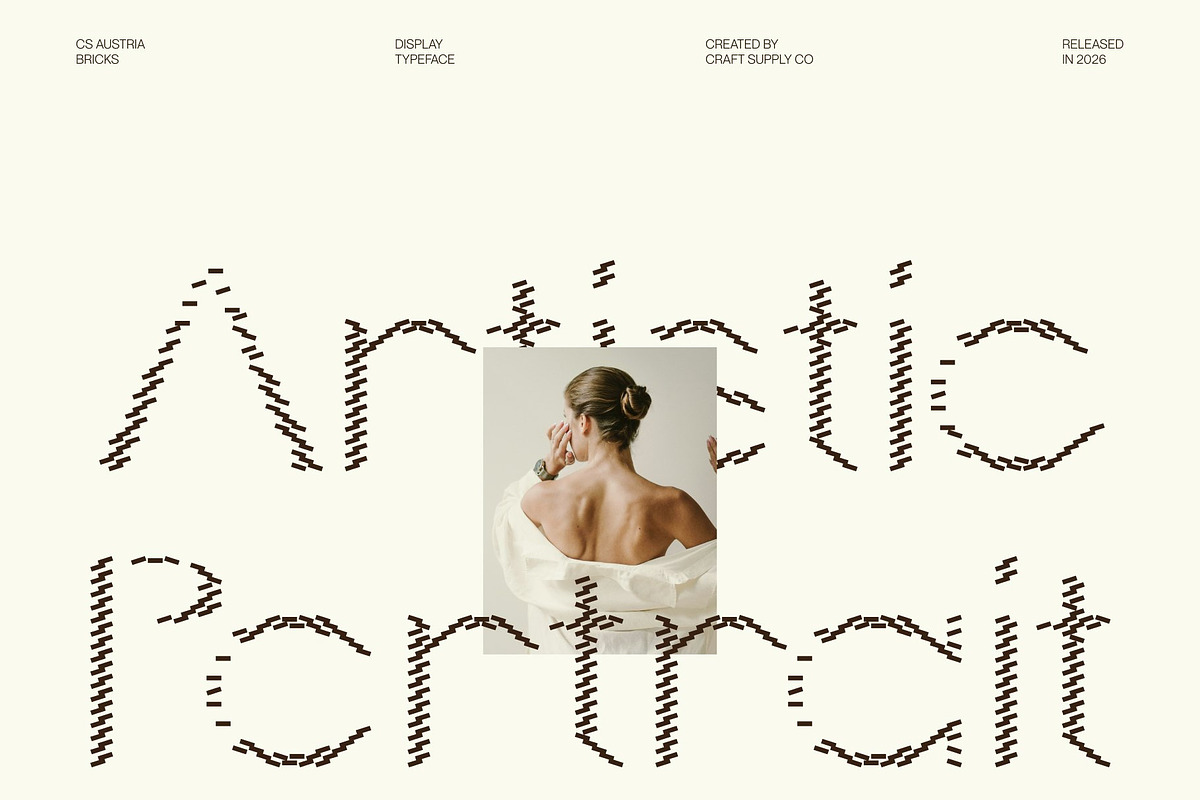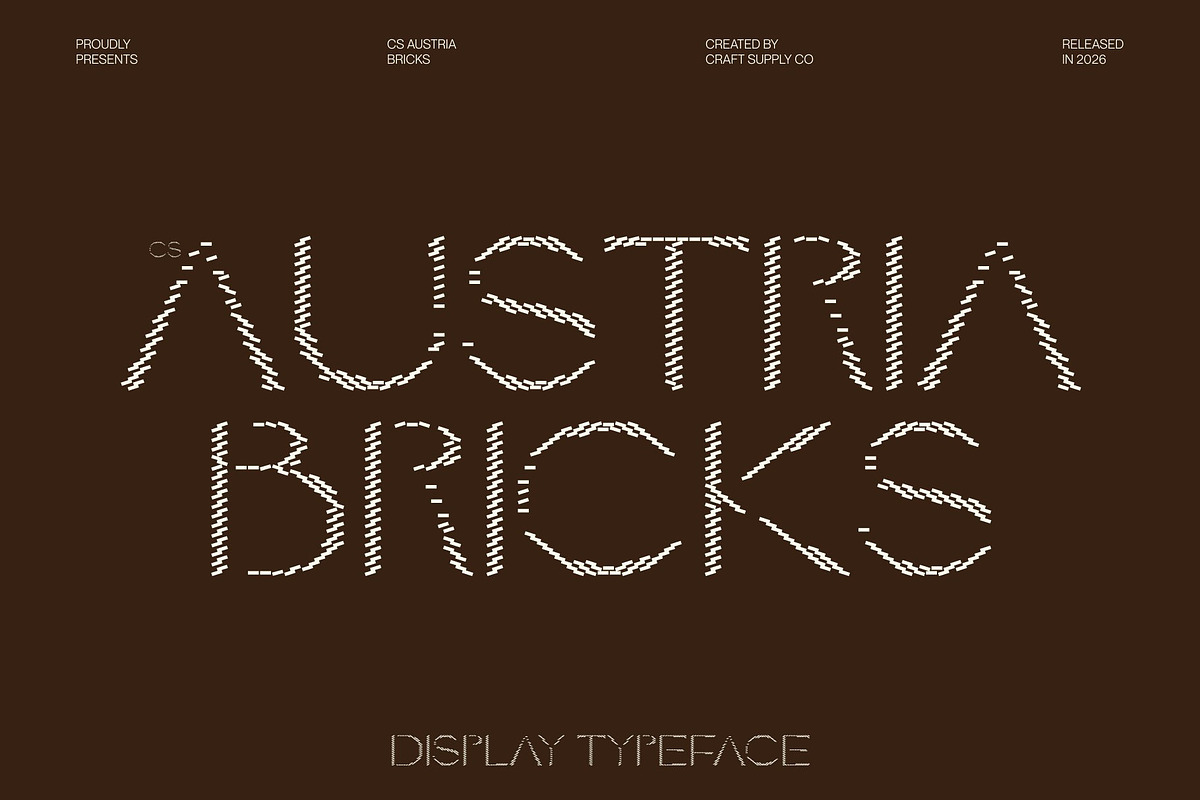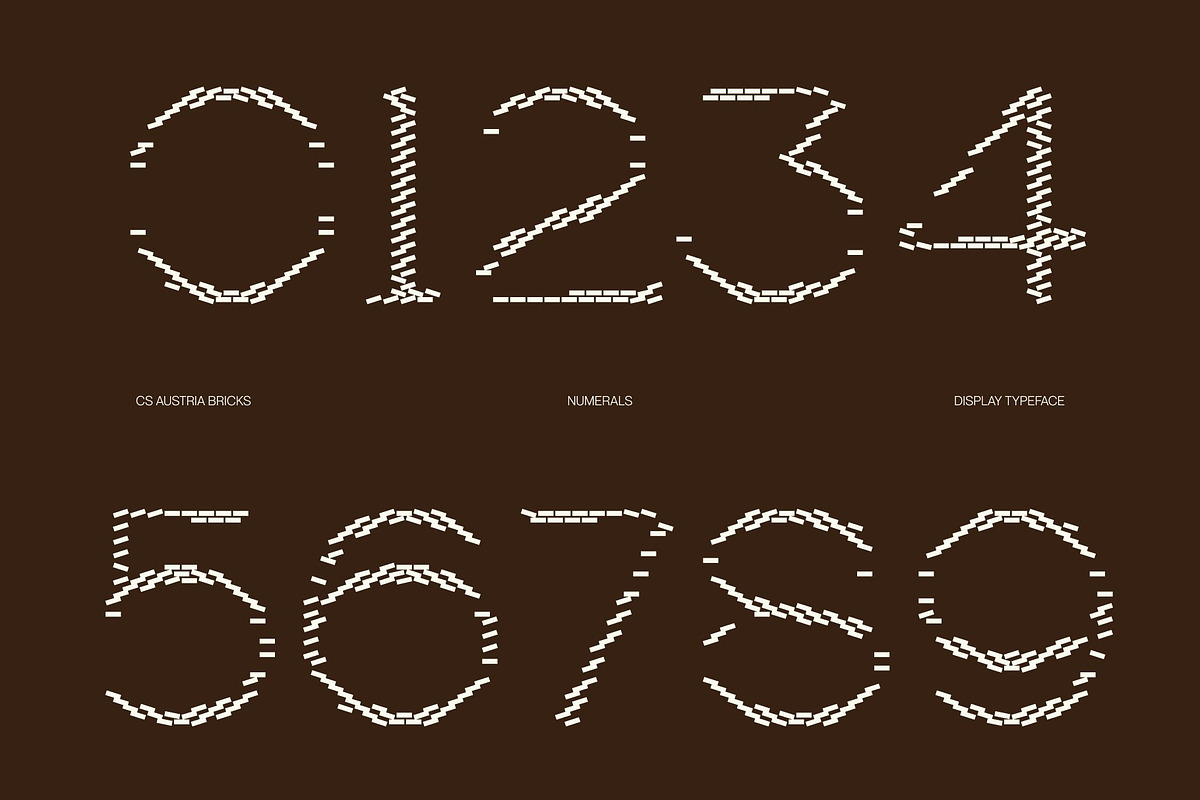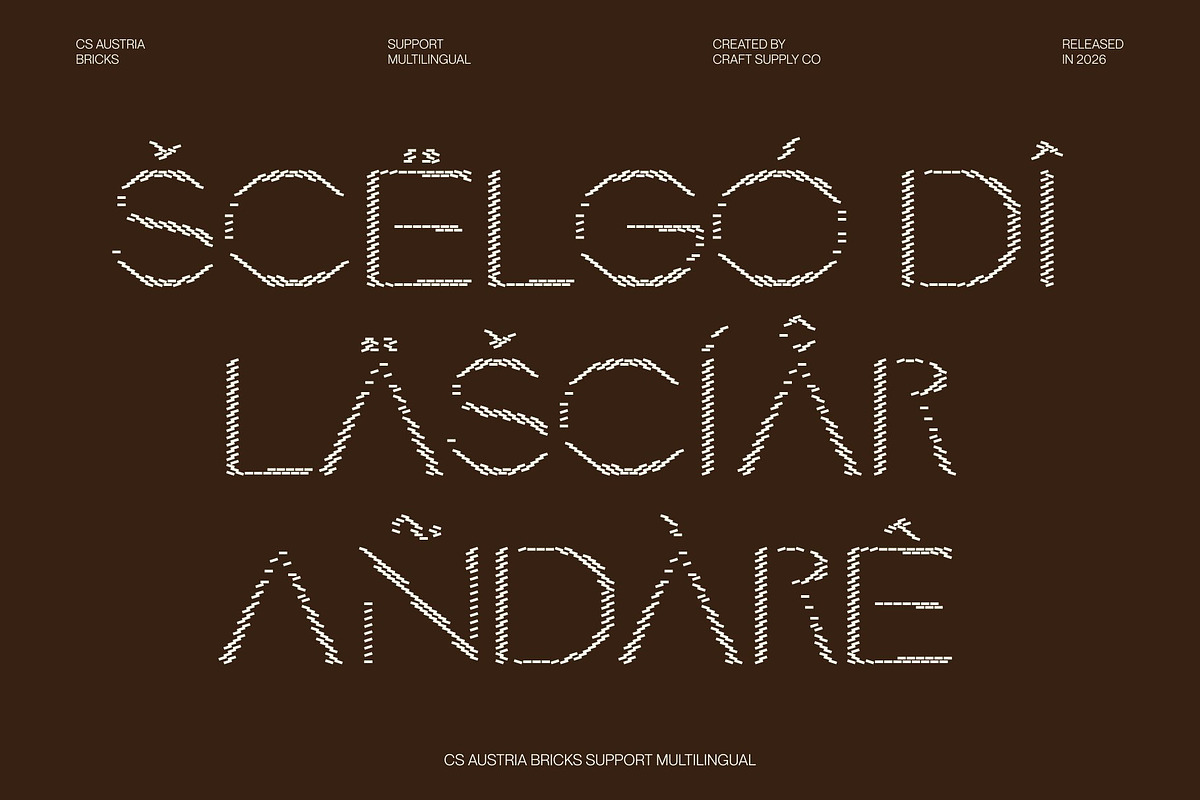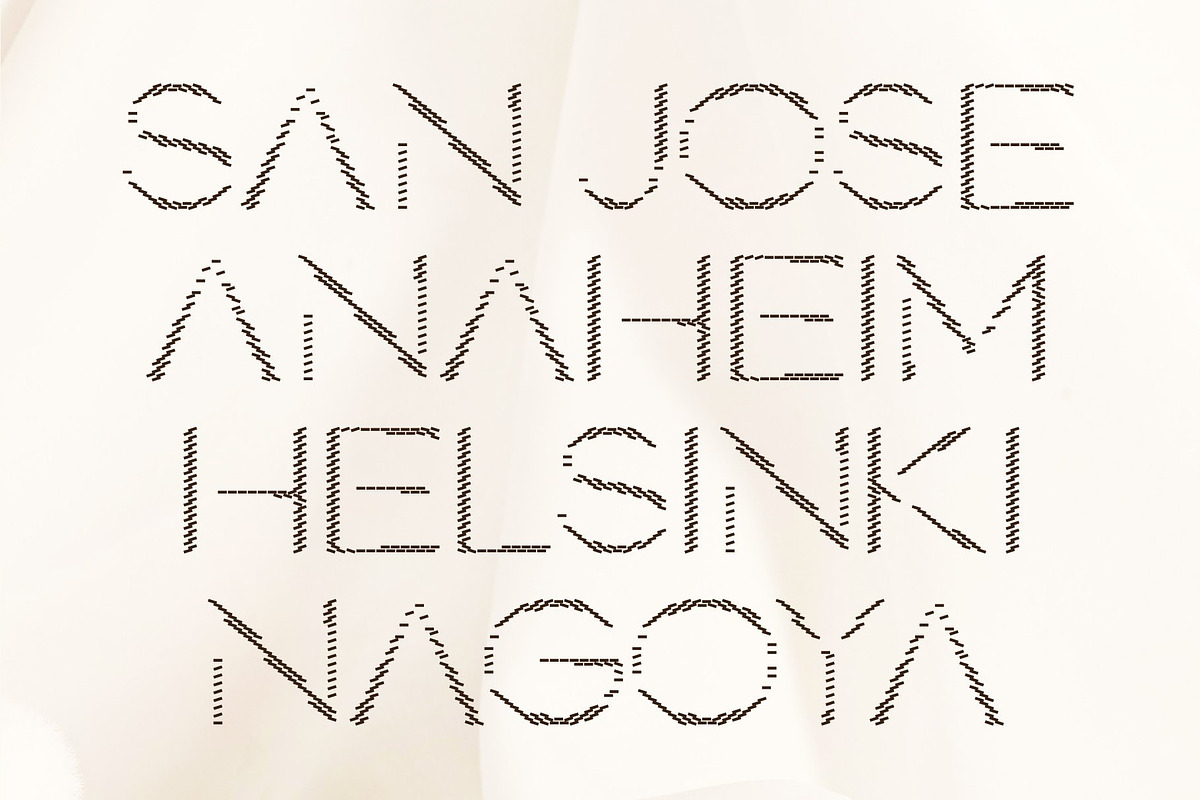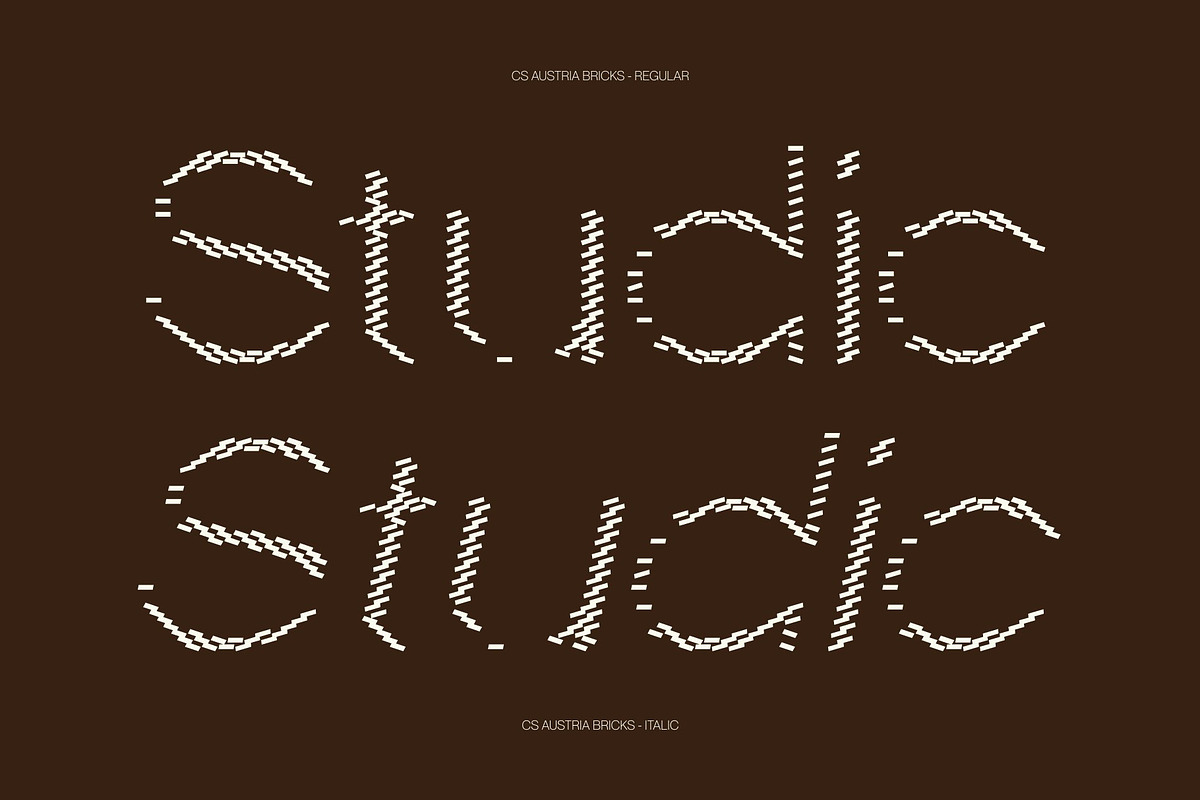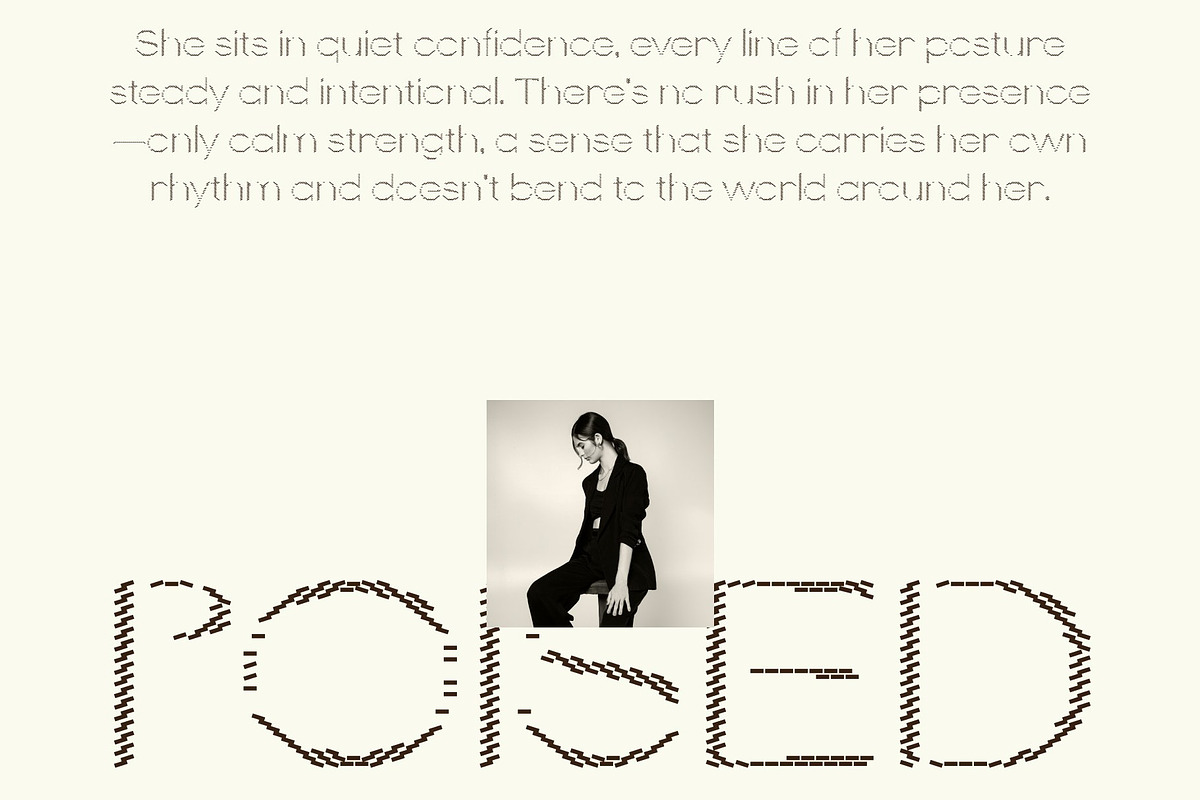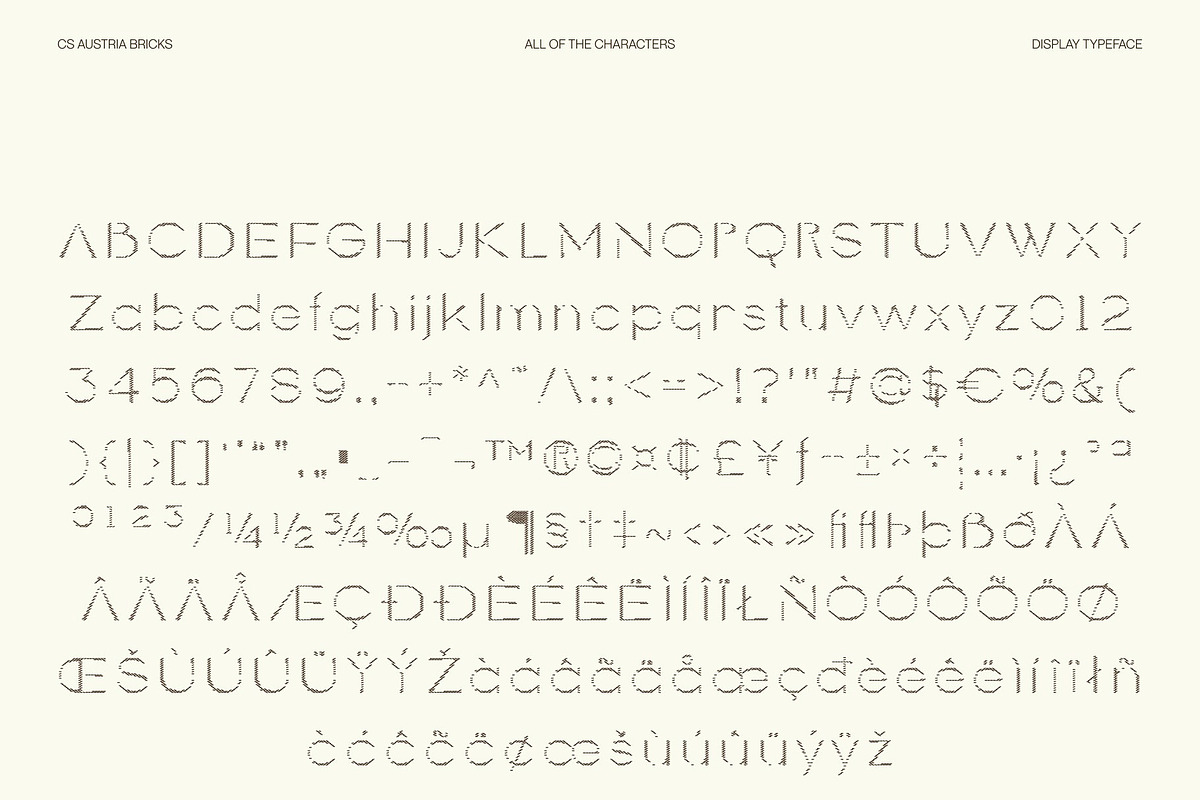
CS Austria Bricks
CS Austria Bricks – Modern Sans Serif Font: Where Minimalist Precision Meets Architectural Texture
Slim Minimalist Forms with Structured Elegance This is a modern sans serif font designed with slim proportions, clean lines, and balanced geometry that create an elegant contemporary appearance. Its minimalist structure emphasizes clarity and refinement, delivering a sleek visual identity perfect for modern creative projects. The thin strokes and efficient proportions give the font a sophisticated and highly polished personality.
Brick-Inspired Texture with Architectural Character Enhanced with a distinctive brick-inspired texture, this font transforms clean minimalist letterforms into decorative architectural compositions. The brick detailing creates the impression that each character is constructed from carefully arranged blocks, adding structure, depth, and urban-inspired texture while maintaining readability and modern precision.
Contemporary Minimalism with Urban Style This font offers a typographic identity that feels refined, modern, and visually distinctive. The contrast between slim minimalist forms and textured brick elements creates a unique atmosphere perfect for fashion-forward and design-conscious branding.
Perfect for Fashion, Branding, and Modern Urban Design This font ideal for ultra-minimalist clothing lines, structural fashion branding, technical material campaigns, editorial layouts, modern posters, and contemporary urban visuals. Its clean forms and decorative brick texture make it perfect for logos, packaging, signage, promotional graphics, and sophisticated visual identities.
CS Austria Bricks Regular
CS Austria Bricks Italic